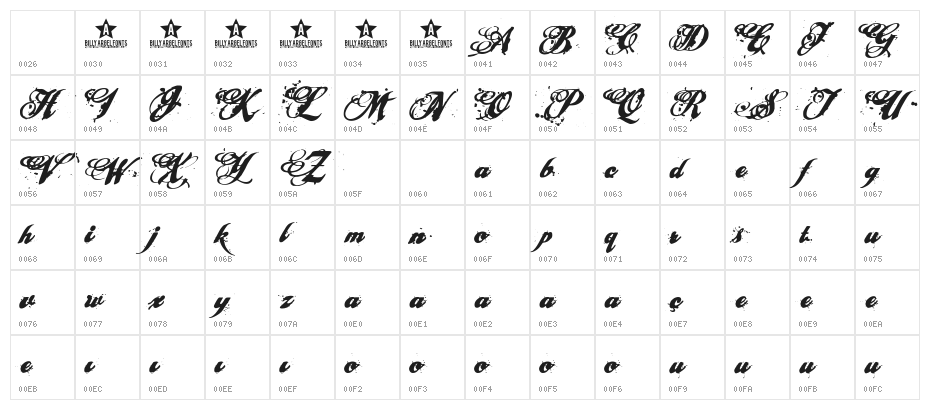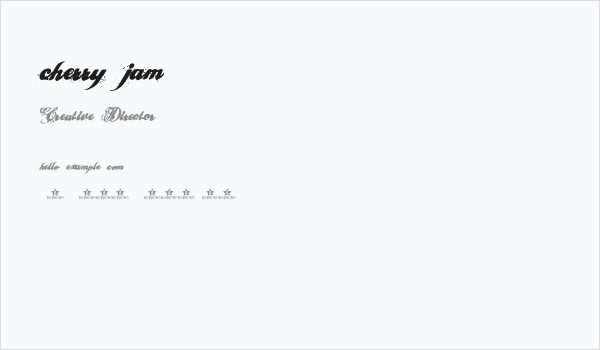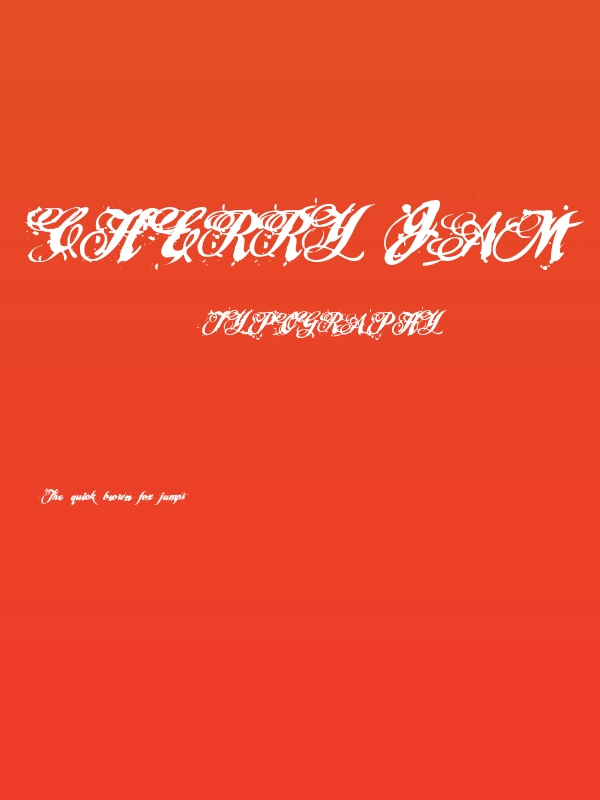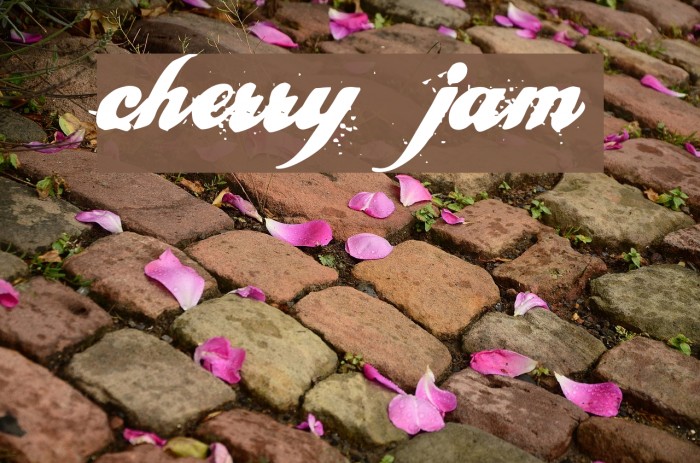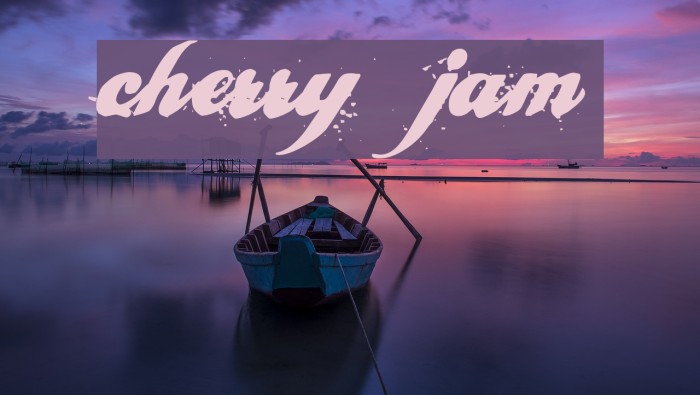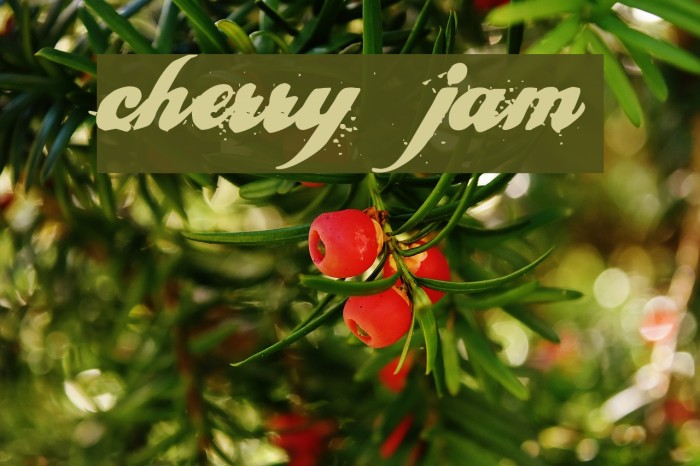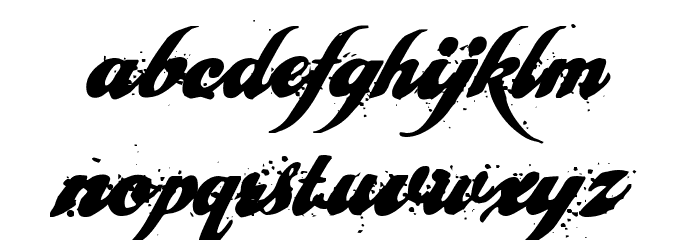
cherry jam Font
cherry jam Description
This font features an elaborate and decorative script style, characterized by its intricate swirls and flourishes. The uppercase letters are particularly ornate, with each character displaying unique embellishments that give it a distinct personality. The lowercase letters maintain a cohesive style, with a bold and flowing appearance that complements the uppercase set. The font includes a variety of special characters, each designed with the same attention to detail. The overall aesthetic is reminiscent of vintage calligraphy, with a modern twist that adds a touch of elegance and sophistication. The font's bold strokes and artistic flair make it ideal for projects that require a dramatic and eye-catching typeface.
| Proposed Projects | Ideal for wedding invitations, branding, logos, and decorative headlines. |